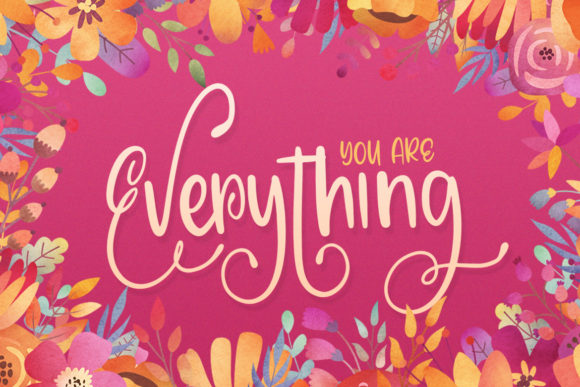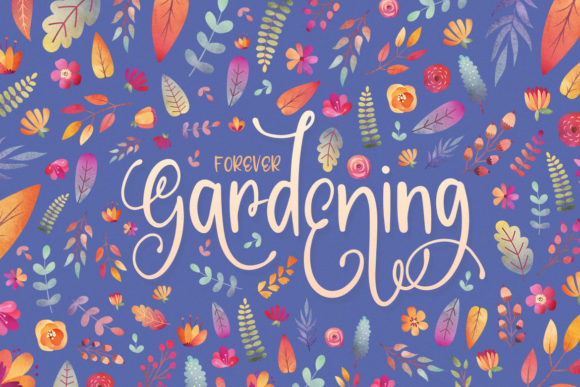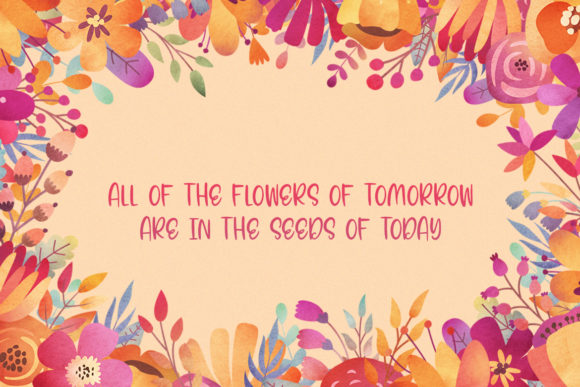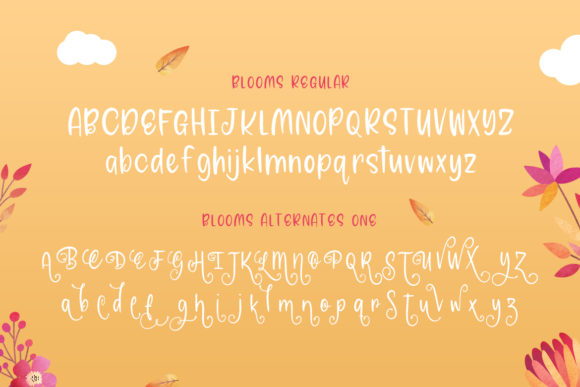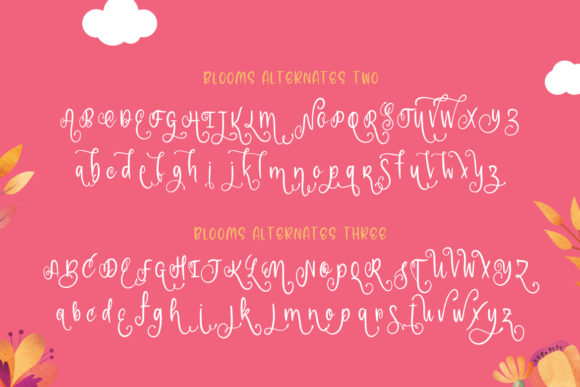
Blooms Font: The Sweet and Joyful Handwritten Font for Creative Projects
Are you looking for a font that can add a touch of sweetness and joy to your creative projects? Look no further than Blooms Font! This beautiful handwritten font is perfect for designers and crafters who want to add a personal and whimsical touch to their work. In this article, we’ll take a closer look at Blooms Font and explore its many uses and benefits.
What is Blooms Font?
Blooms Font is a sweet and joyful handwritten font that is perfect for a variety of creative projects. Its playful and cursive design makes it ideal for adding a personal touch to your work. Whether you’re creating a logo, wedding invitation, or social media graphic, Blooms Font is sure to make your project stand out.
Uses for Blooms Font
Blooms Font is a versatile font that can be used for a wide range of creative projects, including:
- Logos: Add a personal touch to your logo with Blooms Font’s playful and cursive design.
- Wedding Invitations: Make your wedding invitation stand out with Blooms Font’s sweet and joyful design.
- Headings: Add a touch of elegance to your headings with Blooms Font’s beautiful handwritten design.
- T-shirts: Create a unique and eye-catching design for your t-shirt with Blooms Font.
- Letterhead: Add a personal touch to your letterhead with Blooms Font’s playful and cursive design.
- Signage: Make your signage stand out with Blooms Font’s bold and beautiful design.
- Labels: Add a touch of sweetness to your labels with Blooms Font’s whimsical design.
- News: Create a unique and eye-catching headline for your news article with Blooms Font.
- Posters: Make your poster stand out with Blooms Font’s bold and beautiful design.
- Badges: Add a personal touch to your badges with Blooms Font’s playful and cursive design.
Benefits of Using Blooms Font
There are many benefits to using Blooms Font for your creative projects. Some of the benefits include:
- Unique and eye-catching design: Blooms Font’s playful and cursive design makes it stand out from other fonts.
- Versatile: Blooms Font can be used for a wide range of creative projects, from logos to wedding invitations.
- Easy to read: Despite its playful design, Blooms Font is easy to read and understand.
- Personal touch: Blooms Font adds a personal and whimsical touch to your creative projects.
Tips for Using Blooms Font
Here are some tips for using Blooms Font in your creative projects:
- Use it sparingly: Blooms Font is a bold and eye-catching font, so use it sparingly to avoid overwhelming your design.
- Pair it with other fonts: Blooms Font pairs well with other fonts, so experiment with different combinations to find the perfect look for your project.
- Experiment with colors: Blooms Font looks great in a variety of colors, so experiment with different colors to find the perfect look for your project.
Blooms Font is a sweet and joyful handwritten font that is perfect for designers and crafters who want to add a personal and whimsical touch to their creative projects. Its playful and cursive design makes it ideal for a wide range of projects, from logos to wedding invitations. With its unique and eye-catching design, versatility, and ease of use, Blooms Font is a great addition to any designer’s toolkit.
Whether you’re a seasoned designer or just starting out, Blooms Font is a great font to have in your arsenal. So why not give it a try and see how it can add a touch of sweetness and joy to your creative projects?